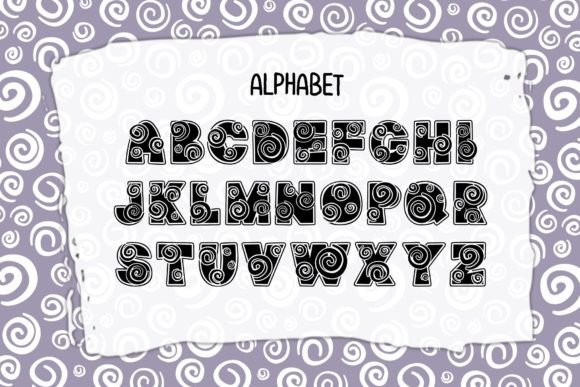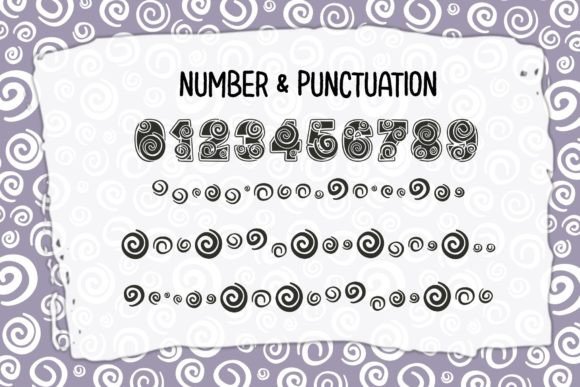
Giddy Font
Giddy is a funny decorative font. The swirling symbols floating out of the letters can make you dizzy. This font is the perfect fit for all of your logos, branding, social media, crafty DIY projects, and much more!